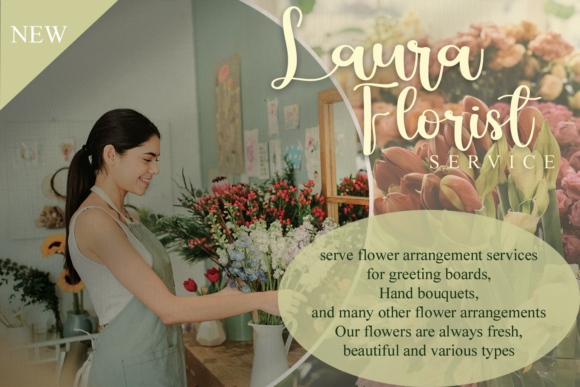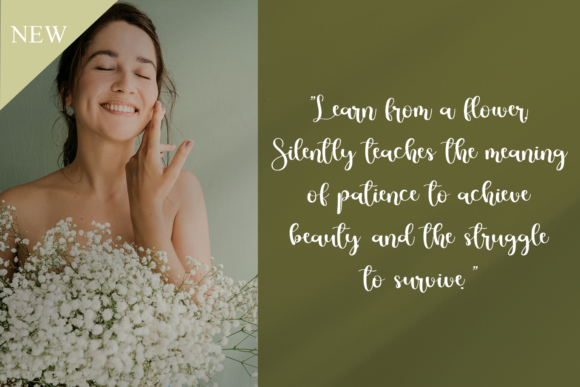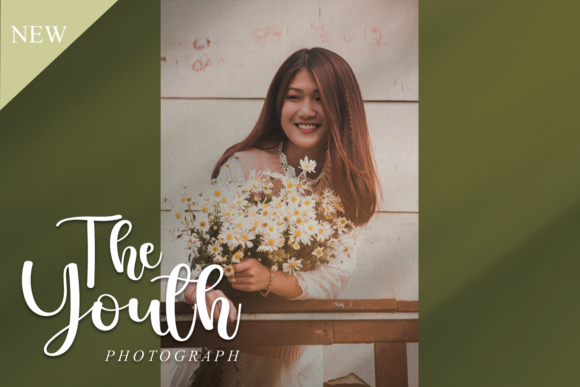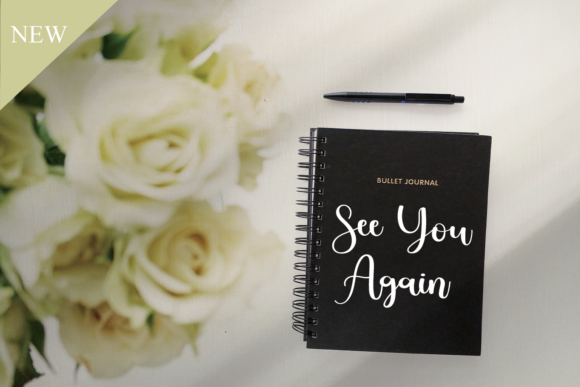
Have you ever found yourself staring at a blank canvas, eager to bring your creative idea to life? The blank page can be daunting, but it’s in these moments that we discover our true potential. Whether you’re a seasoned designer or a DIY enthusiast, the key to unlocking your creativity lies in the right tools – and for many, that tool is the perfect font.
Enter the enchanting Daisy Flowers Font, a magical script font that adds a touch of elegance to any project. This beautifully crafted font is designed to elevate your creative ideas, transforming them into stunning works of art that capture the essence of your vision. With its versatility and sophistication, the Daisy Flowers Font is a valuable asset for designers, making it the perfect addition to your toolkit.
Daisy Flowers Font Key Features
- Unique Characteristics: Hand-drawn, floral design with delicate petals and intricate details
- Language Support: Multi-language support, including Latin, Cyrillic, and Greek alphabets
- Font Style: Script, Casual, and Display font styles available
Daisy Flowers Font Review
I recently had the chance to work with the Daisy Flowers Font, and I must say it’s a lovely addition to any design project. ✨ Here are some of the things that stood out to me:
- Delicate and whimsical design that’s perfect for spring or garden-themed projects
- Includes a range of uppercase and lowercase letters, numbers, and punctuation marks
- Beautifully rendered details and subtle texture add a touch of elegance
- Character set is relatively limited, with only basic Latin characters supported
- No bold or italic font styles available
- Can be a bit difficult to read in smaller sizes or when used for body text
Overall, I think the Daisy Flowers Font is a great choice for projects where a touch of whimsy and elegance is needed. It’s perfect for title text, headings, or other decorative elements. However, it may not be the best choice for body text or projects that require a wide range of characters or font styles.
Daisy Flowers Font Practical Application Guide
Use the Daisy Flowers font to add a touch of whimsy and elegance to your designs. Pair it with bold colors and playful graphics for a unique look.
The Daisy Flowers font is perfect for:
- Children’s party designs
- Floral-themed marketing materials
- Handmade crafts and DIY projects
Alternatives to Daisy Flowers Font
Lavender Fields Font
Lavender Fields Font is a beautiful, delicate script font that evokes the feeling of a field of lavender on a warm summer day. It’s perfect for wedding invitations, baby shower invitations, and other feminine designs.
Compared to Daisy Flowers Font, Lavender Fields Font has a more subtle, understated look that’s still elegant and sophisticated. It’s a great choice for designers who want a softer, more refined look.
Wildflower Script Font
Wildflower Script Font is a whimsical, handwritten font that captures the carefree spirit of a wildflower meadow. It’s perfect for designs that need a playful, organic feel, such as children’s books, garden designs, and outdoor-themed events.
Compared to Daisy Flowers Font, Wildflower Script Font has a more rustic, hand-drawn look that’s perfect for designs that need a bit of whimsy and personality.
Floral Bliss Font
Floral Bliss Font is a beautiful, elegant script font that combines the classic look of traditional calligraphy with the modern feel of a digital font. It’s perfect for designs that need a touch of sophistication and refinement, such as luxury brands, high-end events, and elegant stationery.
Compared to Daisy Flowers Font, Floral Bliss Font has a more refined, polished look that’s perfect for designers who want a high-end, sophisticated look.
Botanical Garden Font
Botanical Garden Font is a unique, hand-drawn font that captures the beauty and diversity of a botanical garden. It’s perfect for designs that need a bit of science and nature, such as science textbooks, botanical illustrations, and garden designs.